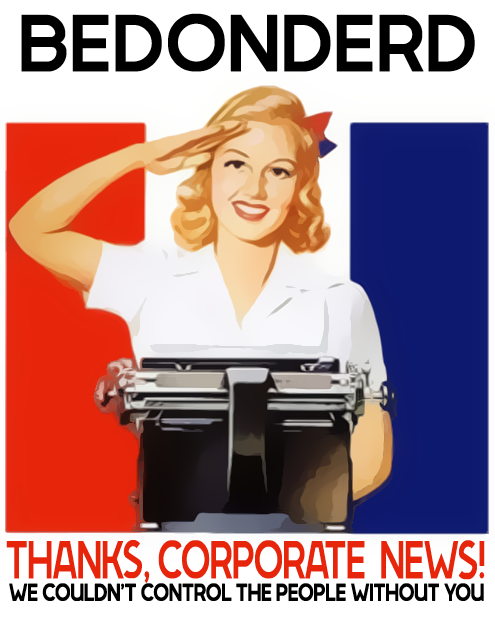
• WIP
All caps geometric gothic sans-serif project. Its a semi bold display design that looks a little like those early grotesque types.
The uppercase O has a distinctive circular shape and has a unusual 3x3 grid square dimension. A number of glyphs still need modifications to achieve better solutions. Also is the character set far from complete yet.
Very clean  look, it would be great for shop signs and newspaper headlines.